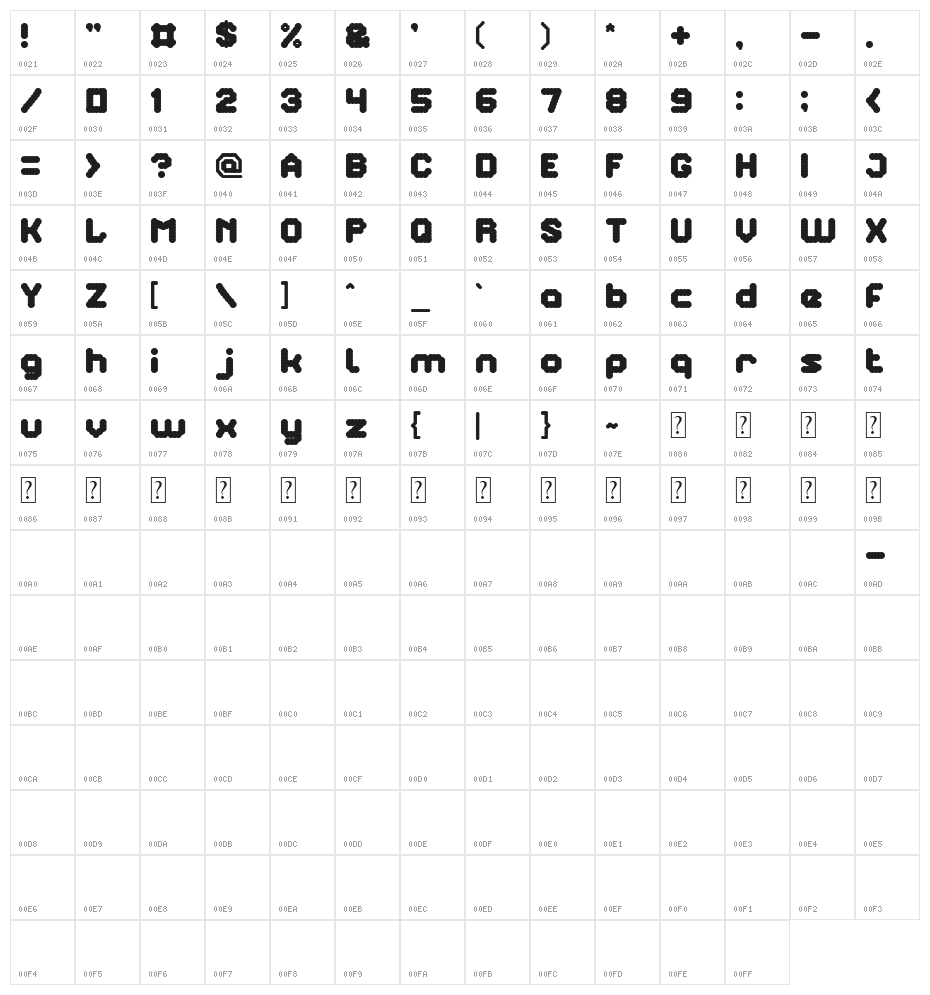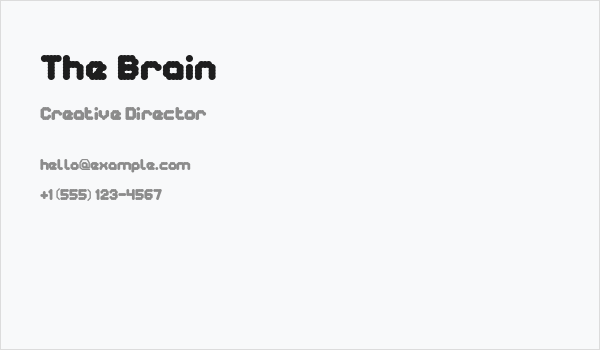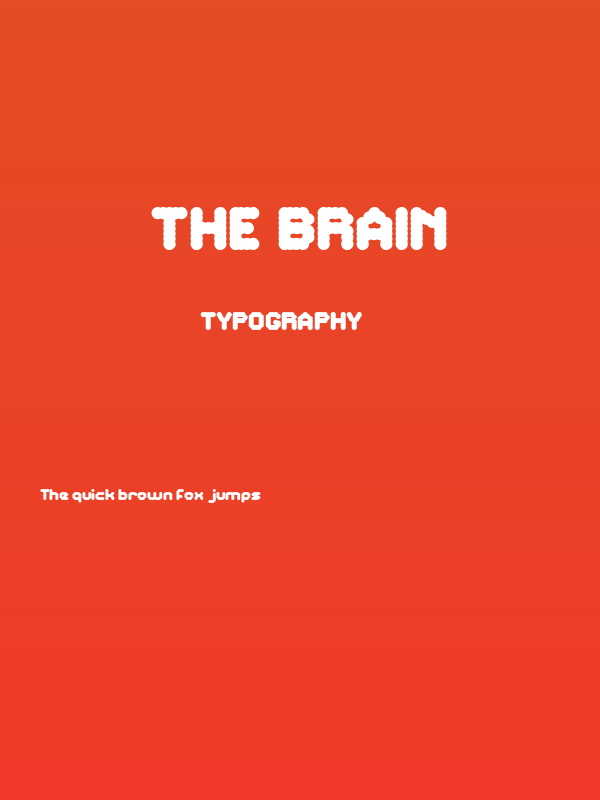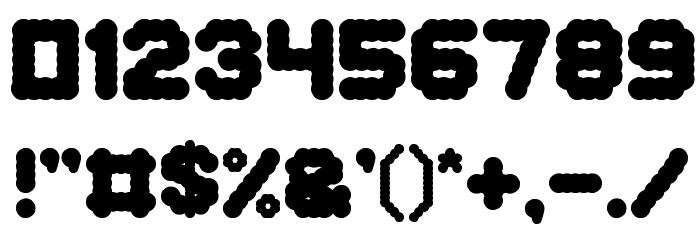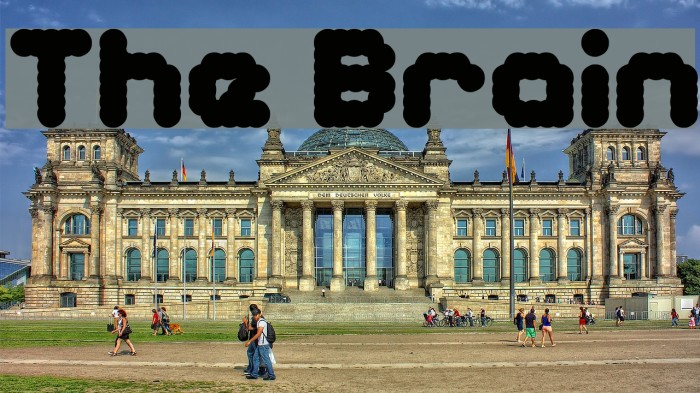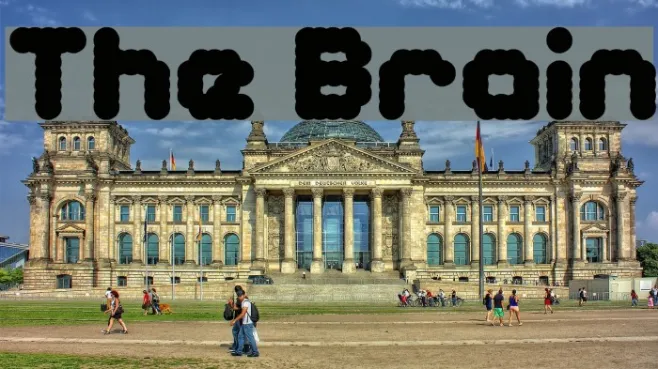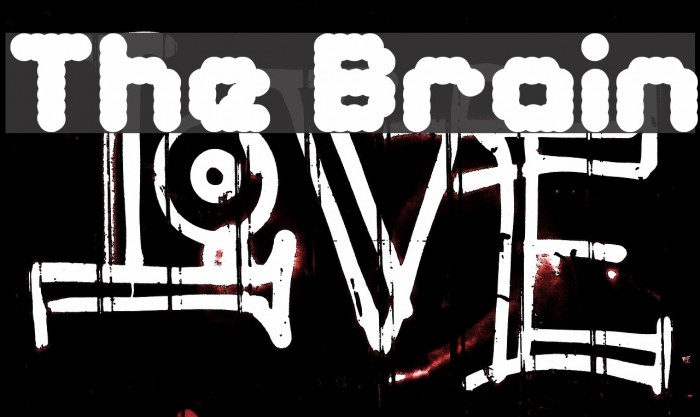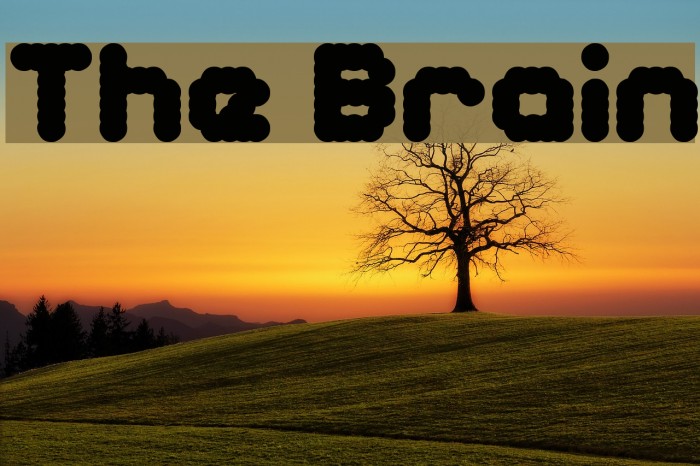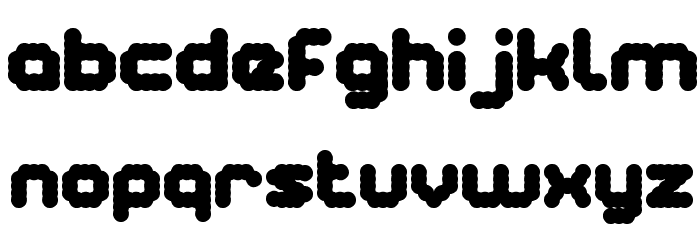
The Brain Font
The Brain Description
This font features a unique and playful design with a bubbly, rounded appearance. Each character is composed of thick, interconnected circles, giving it a distinctive, almost organic look. The style is bold and eye-catching, making it ideal for creative and informal applications. The uppercase and lowercase letters maintain a consistent weight and shape, ensuring readability while adding a touch of whimsy. Numbers and special characters follow the same design principles, providing a cohesive and unified appearance across all glyphs. This font is perfect for projects that require a fun and engaging visual element.
| Proposed Projects | Great for children's books, playful branding, posters, and party invitations. |